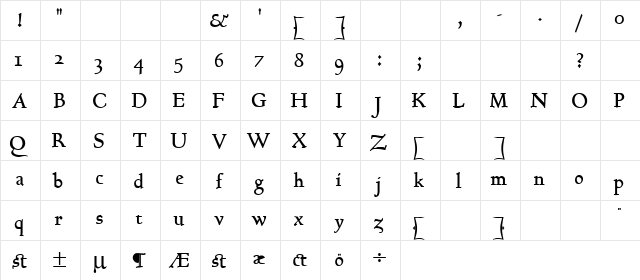
GoundyHundred Bold
Design Context for GoundyHundred Typeface
GoundyHundred is a composed and adaptable typeface that performs quietly and consistently across a wide range of design contexts. Its bold stroke weight gives it real presence on the page.
Pro Tip: Pair GoundyHundred with a font of contrasting weight or personality to build a more expressive typographic hierarchy.